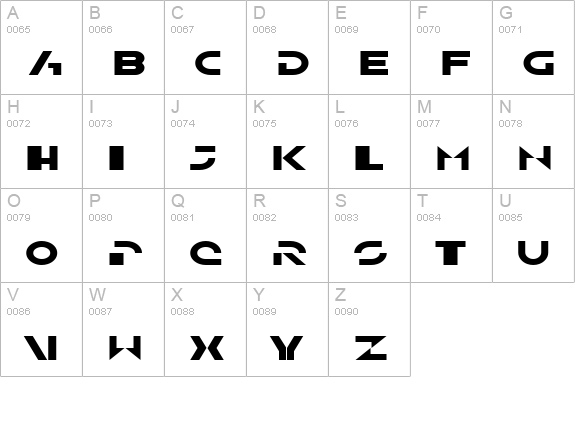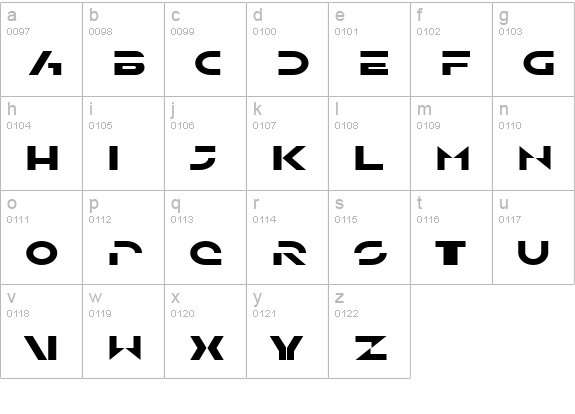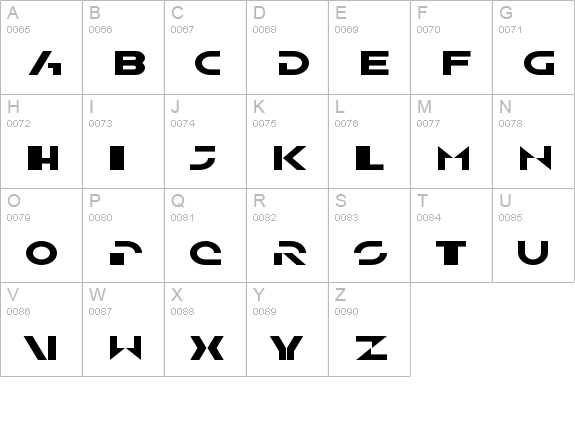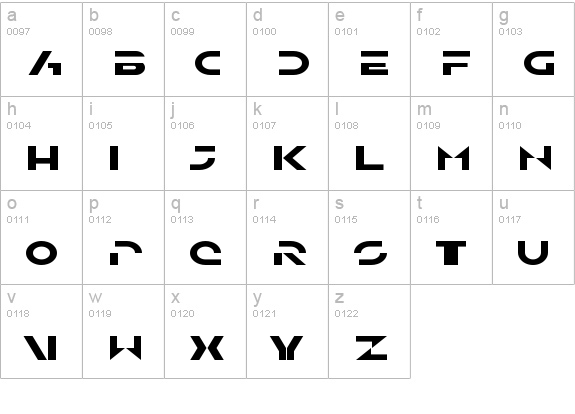
SF Solar Sailer Extended is a distinctive, extended-width variant in the SF typeface family \xE2\x80\x94 well suited to design and typography projects.
Introducing SF Solar Sailer Extended, a captivating and futuristic font that takes your designs to new heights. This font is the perfect blend of modernity and elegance, exuding a sense of sophistication and innovation. With its sleek lines and unique angles, SF Solar Sailer Extended captures the essence of the future in every character. Designed with attention to detail, this font brings a sense of energy and dynamism to any project. Whether you're designing a logo, creating a poster, or crafting a website, SF Solar Sailer Extended will effortlessly elevate your design to the next level. Its extended form adds an extra touch of drama and impact, making it ideal for headlines and titles that demand attention. But what sets SF Solar Sailer Extended apart is not just its stunning aesthetics – it's also its availability. This font is freely available to download at FontsMarket.com, ensuring that designers of all backgrounds and budgets can access its captivating charm. The versatility of SF Solar Sailer Extended means that it can be used for personal and commercial projects alike, making it a valuable addition to any designer's toolkit. So, why wait? Unleash your creativity with SF Solar Sailer Extended and watch your designs come to life. With its free availability and exceptional design, this font is a must-have for anyone looking to make a statement. Download SF Solar Sailer Extended today and embark on a journey of limitless possibilities in the world of design.